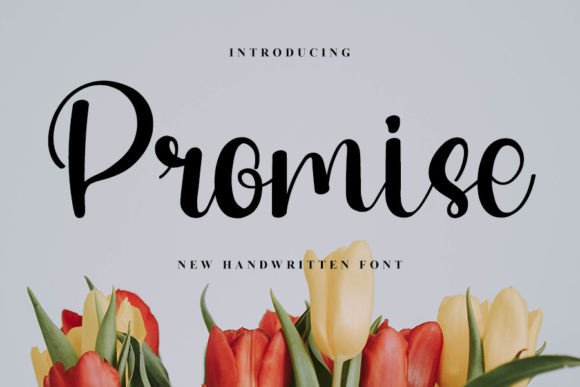
Immerse yourself in the world of Promise Font, where elegance and beauty dance together to bring life to your creative visions. This enchanting script font, crafted by the skilled hands of Kongsi.Co, is a testament to the power of handwritten artistry, capturing the essence of timeless style.
With Promise Font, you hold the key to unlocking a world of design possibilities. Its graceful strokes and delicate curves lend an air of sophistication to your projects, whether you're creating stunning logos, eye-catching social media graphics, or heartwarming invitations.
Embrace the allure of Promise Font and let your imagination soar. Experience the joy of crafting designs that exude elegance, charm, and a touch of whimsy. Its versatility shines through, adapting seamlessly to a multitude of design styles, from classic and vintage to modern and contemporary.
Indulge in the artistry of Promise Font and let your creativity flourish. Its timeless beauty will elevate your designs to new heights, capturing the hearts of your audience and leaving a lasting impression.